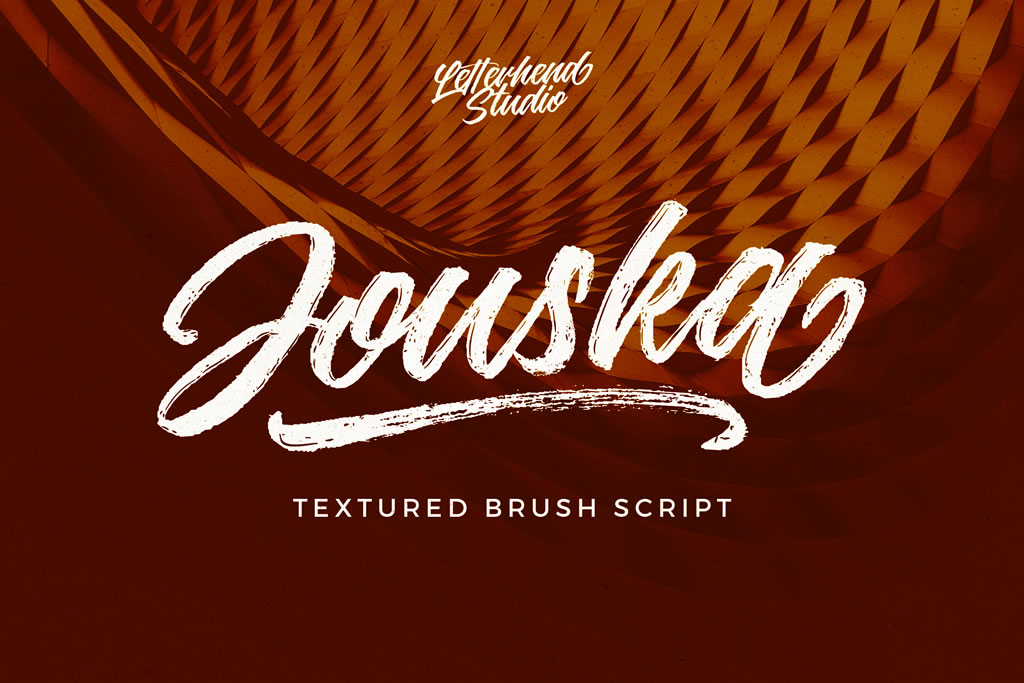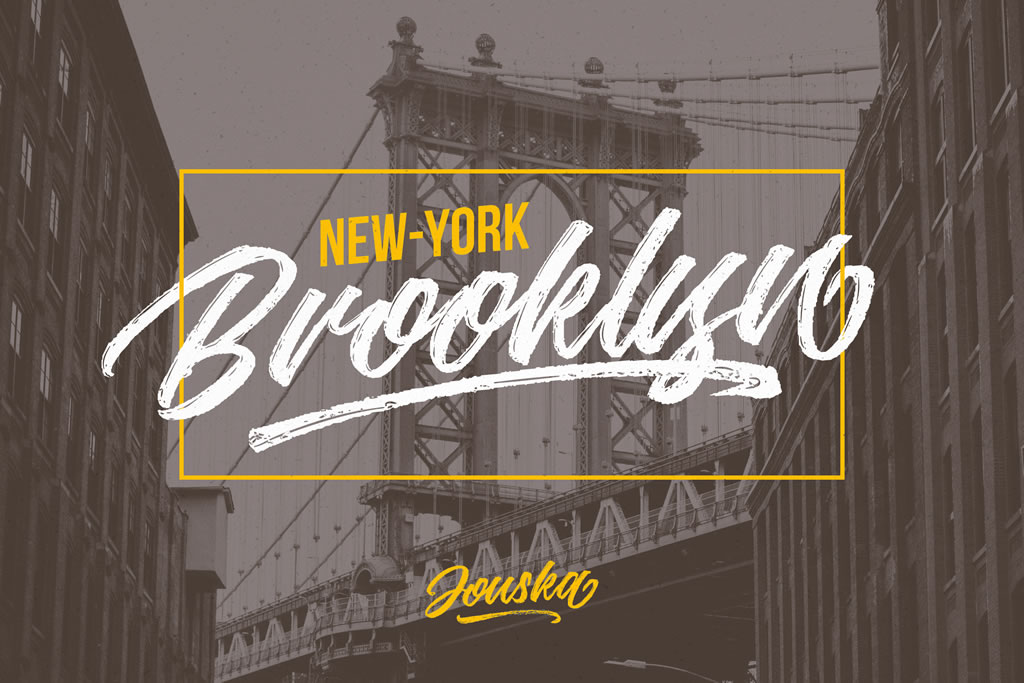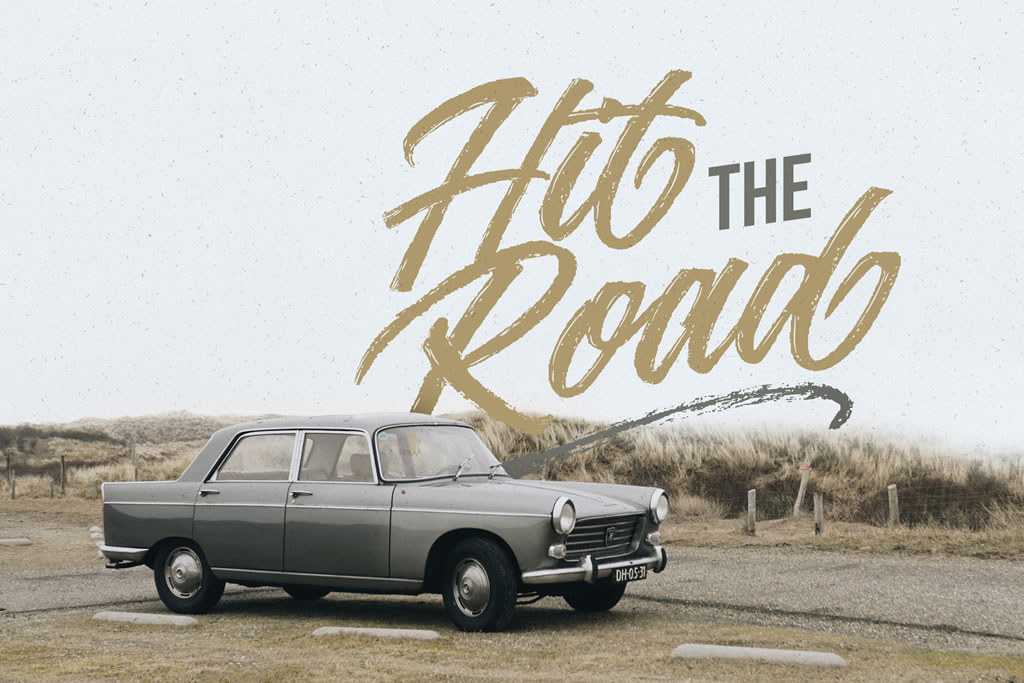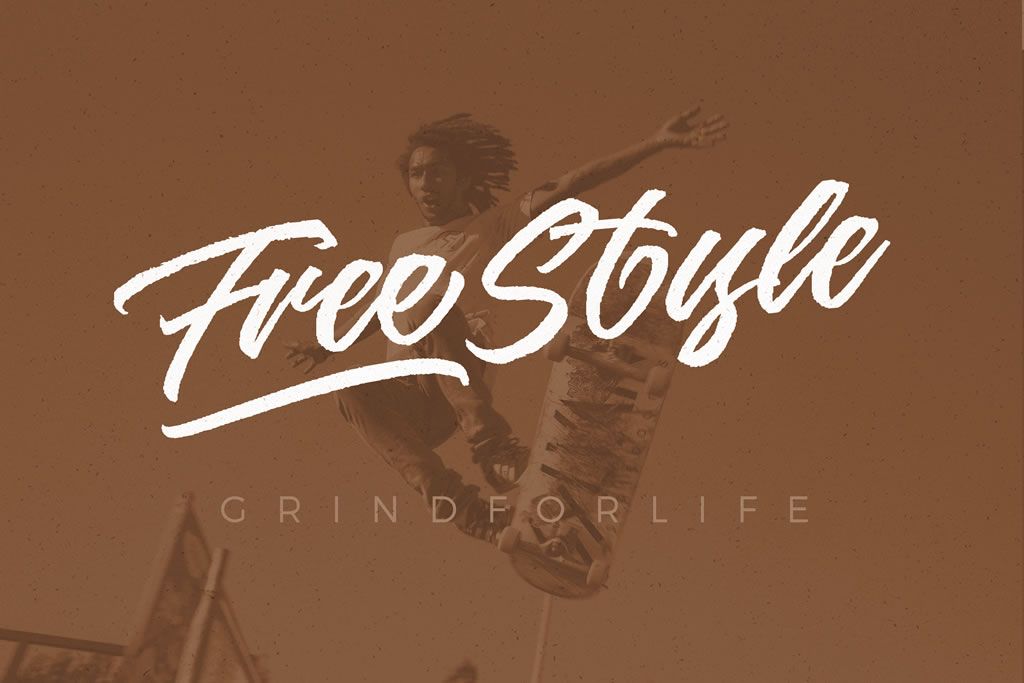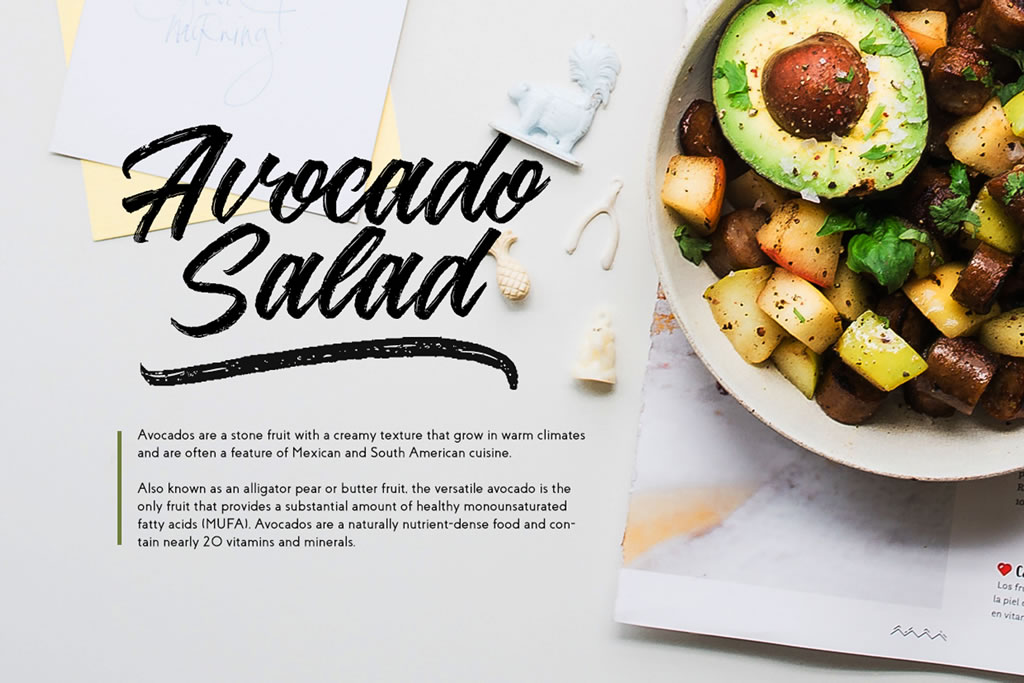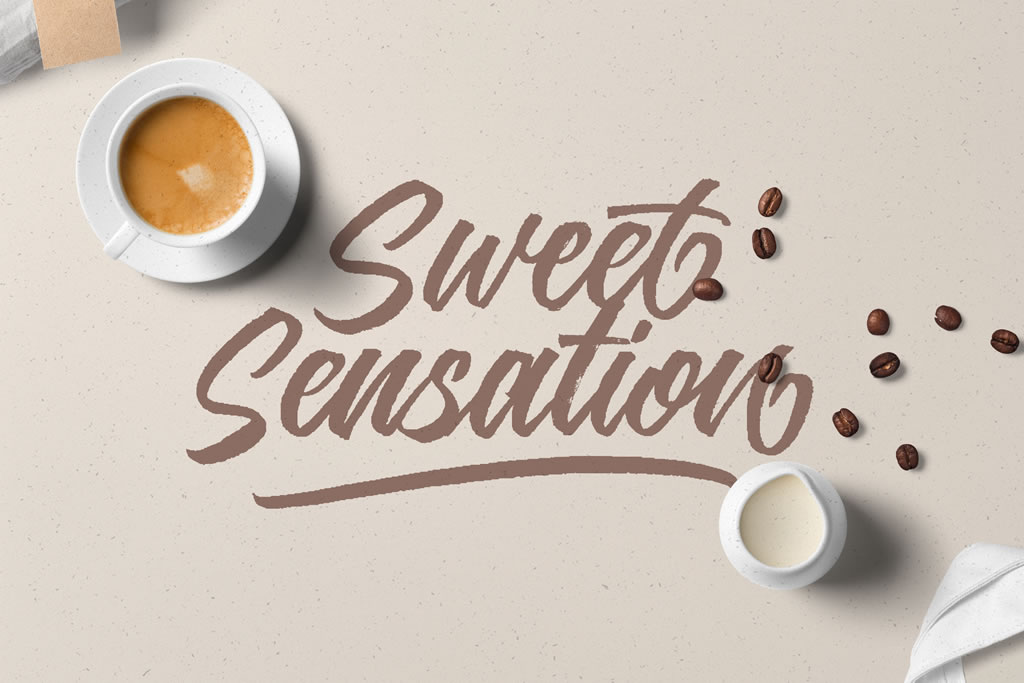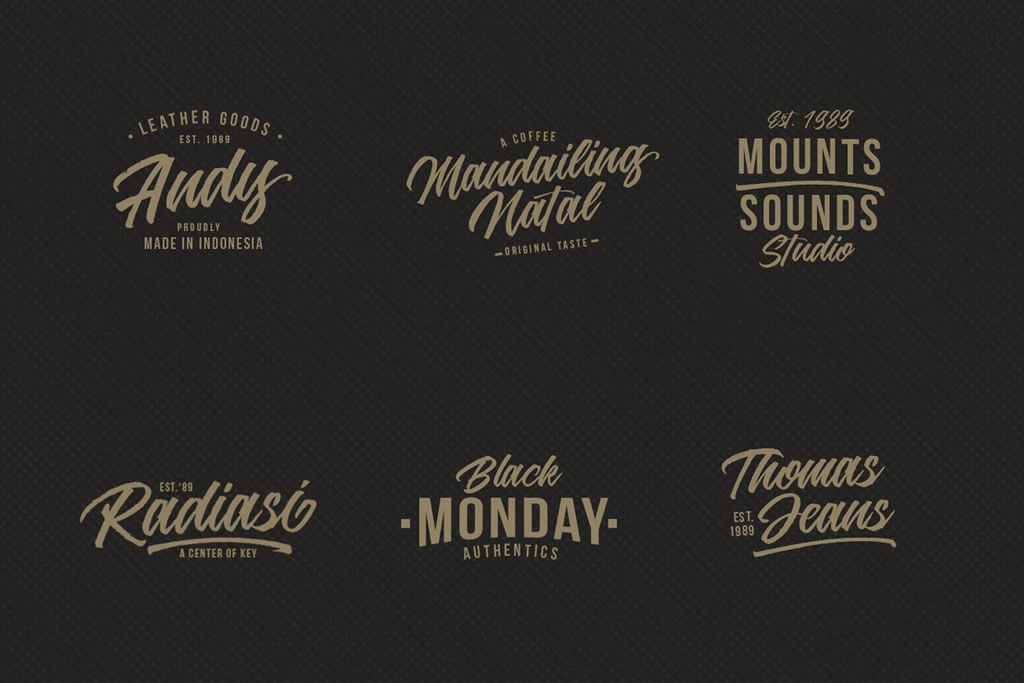
Jouska Font
Jouska, a textured brush script.
This manually brushed typeface has a gritty and grunge look and feel. Combined with the fluid brush strokes this makes for a professional looking type.